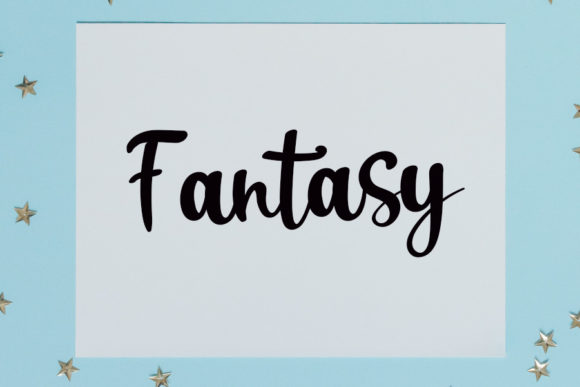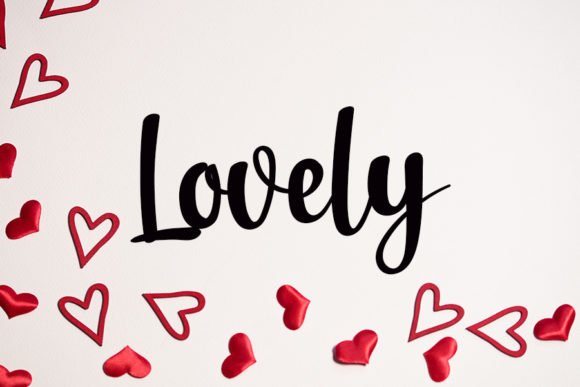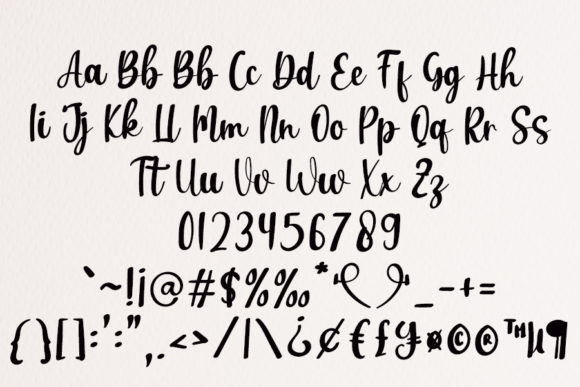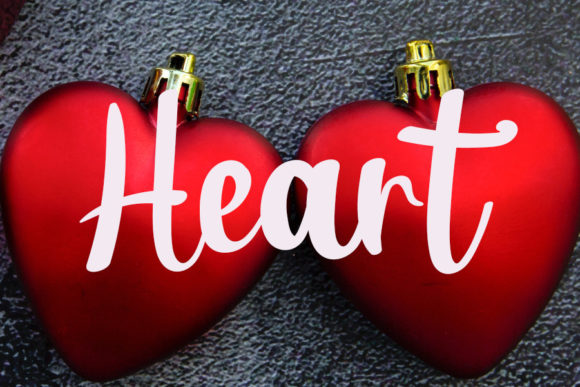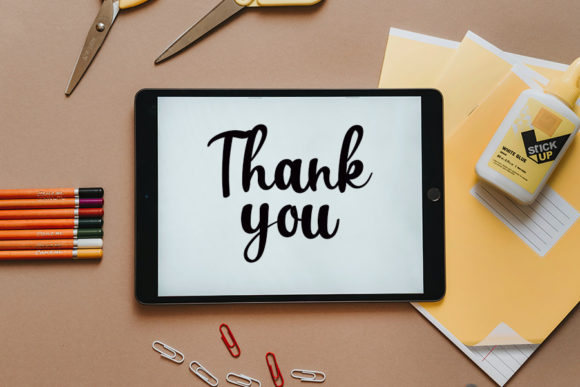
Introducing Beautiful Dream Font: The Perfect Blend of Class and Modernity
Are you on the hunt for a font that exudes elegance, sophistication, and a touch of modernity? Look no further than Beautiful Dream Font, a stunning handwritten font that is sure to become your new favorite. With its delicate, cursive lines and fresh, contemporary feel, this font is perfect for designers, crafters, and anyone looking to add a touch of whimsy to their projects.
The Story Behind Beautiful Dream Font
Beautiful Dream Font is a carefully crafted, friendly handwritten font that draws inspiration from traditional calligraphy. Its creator aimed to design a font that would not only pay homage to classic calligraphic styles but also feel modern and fresh. The result is a beautiful, flowing script that is both elegant and approachable.
Key Features of Beautiful Dream Font
- Classy Calligraphic Influences: Beautiful Dream Font boasts delicate, cursive lines that evoke the feeling of traditional calligraphy.
- Contemporary and Fresh: Despite its classic influences, this font feels modern and current, making it perfect for a wide range of design projects.
- Handwritten Charm: With its subtle imperfections and irregularities, Beautiful Dream Font has a charming, handwritten quality that sets it apart from more formal fonts.
- Versatile: This font is suitable for a variety of design applications, from branding and packaging to wedding invitations and digital marketing materials.
Use Cases for Beautiful Dream Font
Beautiful Dream Font is an incredibly versatile font that can be used in a wide range of design projects. Here are a few ideas to get you started:
- Wedding Invitations and Stationery: Add a touch of romance and whimsy to your wedding invitations, save-the-dates, and other stationery with Beautiful Dream Font.
- Branding and Packaging: Use this font to create beautiful, eye-catching packaging and branding materials that will help your business stand out.
- Digital Marketing Materials: Beautiful Dream Font is perfect for digital marketing materials, such as social media graphics, email headers, and blog posts.
- Crafting and Scrapbooking: This font is also great for crafters and scrapbookers looking to add a personal touch to their projects.
Why Choose Beautiful Dream Font?
With so many fonts available, why choose Beautiful Dream Font? Here are just a few reasons why this font stands out:
- Unique and Eye-Catching: Beautiful Dream Font is a one-of-a-kind font that will help your designs stand out from the crowd.
- Easy to Read: Despite its delicate lines, this font is surprisingly easy to read, making it perfect for body text and other applications where legibility is key.
- Customizable: With its extensive character set and multiple language support, Beautiful Dream Font can be customized to suit your specific design needs.
In conclusion, Beautiful Dream Font is a stunning, versatile font that is sure to become a favorite among designers, crafters, and anyone looking to add a touch of elegance and whimsy to their projects. With its classy calligraphic influences, modern feel, and extensive use cases, this font is a must-have for anyone looking to elevate their designs. So why wait? Download Beautiful Dream Font today and start creating beautiful, eye-catching designs that will leave a lasting impression.